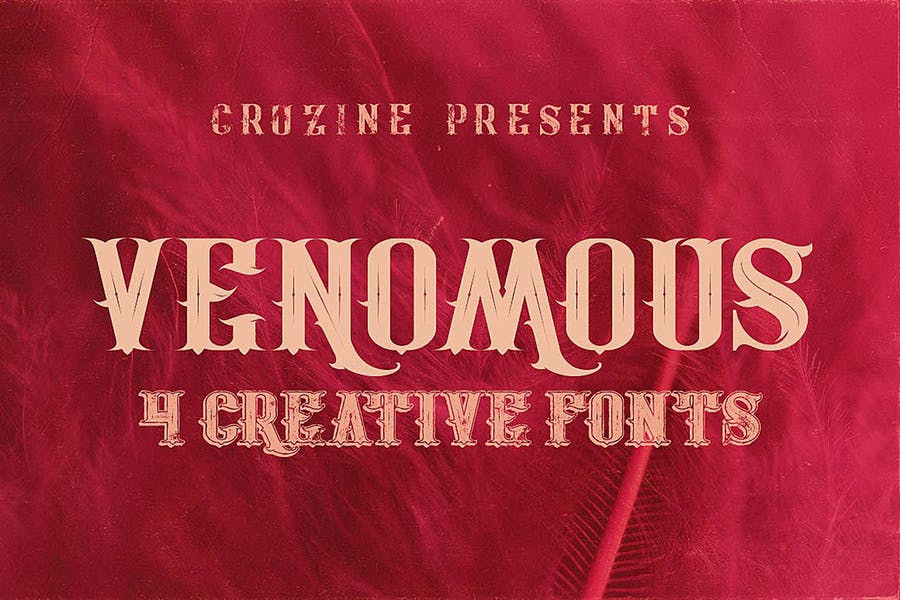
Venomous Typeface Font
Venomous Typeface Font is perfect for dark metal band logos, horror movie titles, gothic fashion branding, extreme sports promotions, aggressive gaming graphics, venomous brand identity, intense music album covers, edgy streetwear labels, dangerous product packaging, hardcore event posters, rebellious advertising campaigns, and menacing storytelling applications.
Venomous Typeface Font is exciting because it embodies raw danger and lethal elegance with sharp, serpentine letterforms that seem to strike with venomous precision, perfectly capturing the deadly beauty and dangerous allure that defines edgy brands seeking to communicate power, rebellion, and the intoxicating appeal of controlled danger.
The Venomous Typeface Font family includes toxic variations: Regular, Bold, Heavy, Sharp, Dripping, and Poison styles, providing designers with a complete dangerous typography arsenal to create menacing compositions that celebrate the dark edge and powerful rebellion that defines alternative culture and extreme expression.
Inject lethal style with Venomous Typeface Font Free Download. This dangerously striking typeface brings the menacing elegance and toxic appeal of venomous creatures to contemporary design projects. Whether you're creating edgy brand identities, designing extreme event materials, or developing rebellious marketing campaigns, Venomous Typeface Font delivers unmatched intensity and dangerous sophistication.
The font's lethally crafted letterforms reflect the deadly precision and serpentine grace that define venomous predators, with sharp angles and toxic proportions that suggest fanged strikes, poisonous beauty, and the dangerous allure that makes forbidden things irresistibly attractive to those who crave authentic edge.
Venomous Typeface Font excels in creating memorable brand experiences for businesses in alternative music, extreme sports, and edgy fashion sectors. Its menacing presence transforms ordinary communications into dangerous statements that resonate with audiences seeking authentic rebellion and the intoxicating power of controlled danger.
Professional designers appreciate how Venomous Typeface Font maintains authentic dangerous character while providing exceptional functionality across diverse extreme applications. The comprehensive style range ensures optimal performance from intimate underground materials to massive alternative culture displays, maintaining consistent toxic appeal and rebellious credibility.
This remarkable typeface brings instant dangerous authority to edgy ventures and rebellion-focused businesses. From metal record labels to extreme sports brands, Venomous Typeface Font creates lasting impressions that communicate power, danger, and the seductive appeal of venomous beauty that defines authentic alternative culture.